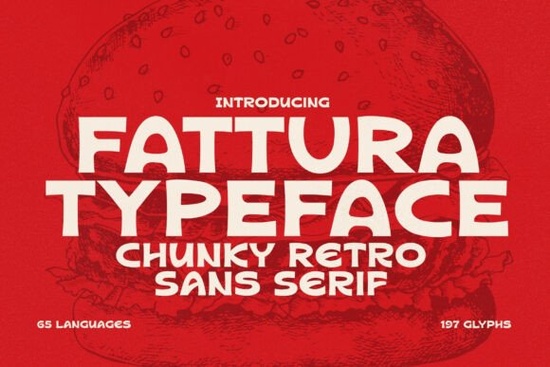
If you’ve been searching for a sans serif font that’s both bold and friendly something that grabs attention without feeling aggressive you’ll want to take a closer look at Fattura Font. It’s the kind of typeface that works just as well on a boutique coffee shop logo as it does on a vibrant Instagram story or a printed poster for a local event. With its thick, rounded letterforms and clean geometry, Fattura brings personality to your designs while staying highly legible, even at large sizes.
What makes Fattura stand out is how it balances strength with approachability. The letters are sculpted with smooth curves and generous weight, giving them a soft-yet-confident presence. Unlike ultra-minimalist sans serifs that can feel cold or corporate, Fattura has warmth. It’s playful without being childish, modern without being sterile and that’s why it’s become a favorite among designers working on branding, packaging, and social content.
When should you use Fattura Font?
Fattura shines in projects where you need immediate visual impact. Think:
- Logo design for lifestyle brands, cafes, or creative studios
- Headlines and titles in posters, flyers, or digital ads
- Social media graphics that need to stop the scroll
- Merchandise and apparel text (especially for print-on-demand)
Because of its solid structure and open counters, it remains readable even when scaled down slightly but it truly comes alive when used big. That said, it’s not meant for body text. Save Fattura for moments when you want to make a statement, not whisper one.
How does it compare to other modern sans serifs?
If you’ve explored Creative Fabrica’s collection, you might already know fonts like Terra Naro, which leans into organic, hand-drawn warmth, or Sublime, a sleek geometric option with refined elegance. Then there’s Kloe, offering soft curves with a minimalist edge, and Quicksend, built for speed and clarity in UI or tech contexts.
Fattura sits comfortably between these styles. It’s more structured than Terra Naro but friendlier than Quicksend. It shares Sublime’s confidence but trades sharp precision for rounded charm. If you’re torn between boldness and warmth, Fattura could be your sweet spot.
Tips for using Fattura effectively
To get the most out of this font, keep a few things in mind:
- Pair it wisely. Fattura works best with a simple, neutral companion font like a light sans or a classic serif for contrast. Avoid pairing it with another heavy or decorative typeface.
- Give it space. Because of its chunky nature, generous letter spacing (tracking) and ample margins help it breathe and prevent visual clutter.
- Use color intentionally. Fattura looks great in solid blacks or deep tones, but don’t shy away from pastels or gradients it adapts surprisingly well to playful palettes.
- Test at scale. Always preview your design at the actual output size. What looks crisp on screen might feel too dense when printed small.
Small businesses and crafters especially benefit from Fattura’s versatility. Whether you’re designing stickers for Etsy, creating labels for homemade candles, or building a brand identity from scratch, this font adds instant polish without requiring advanced design skills.